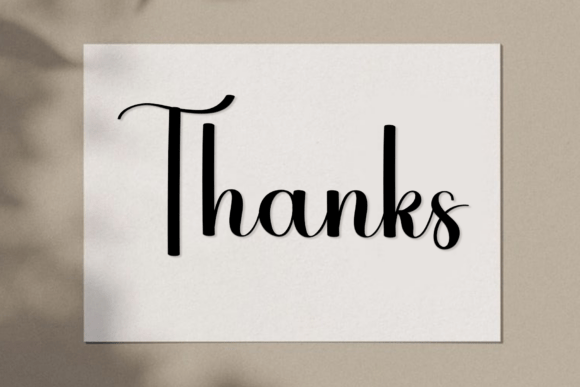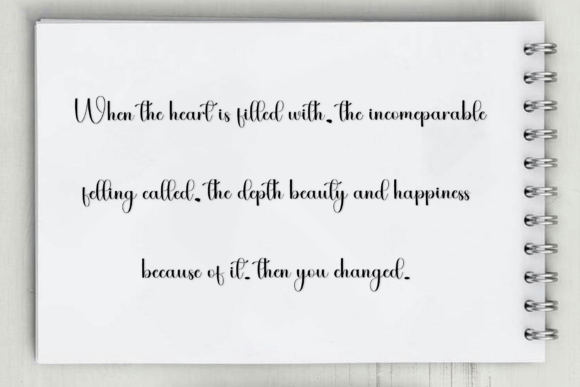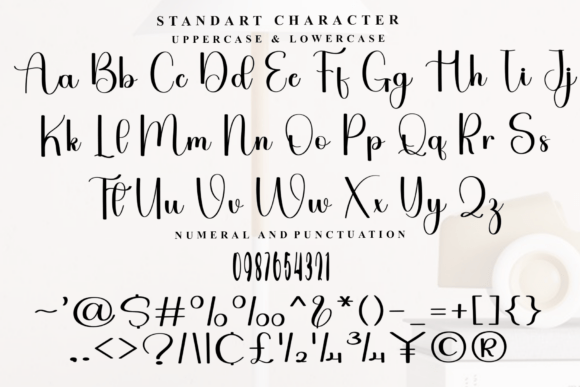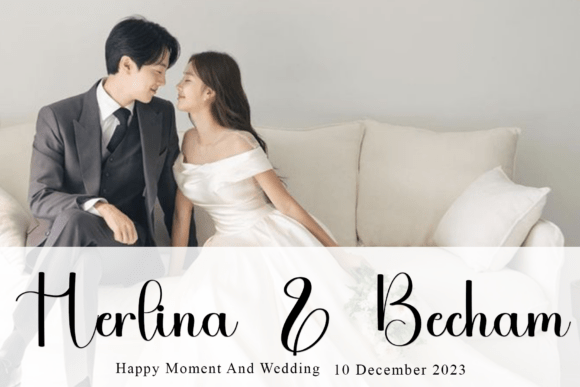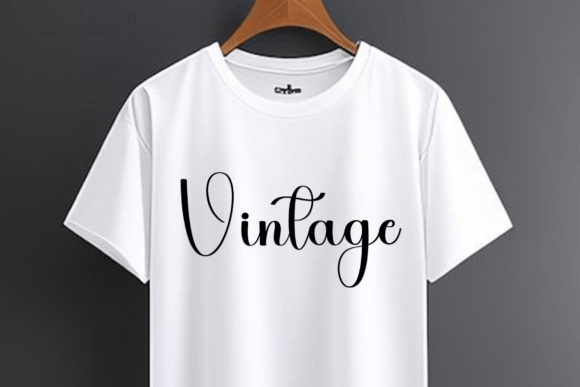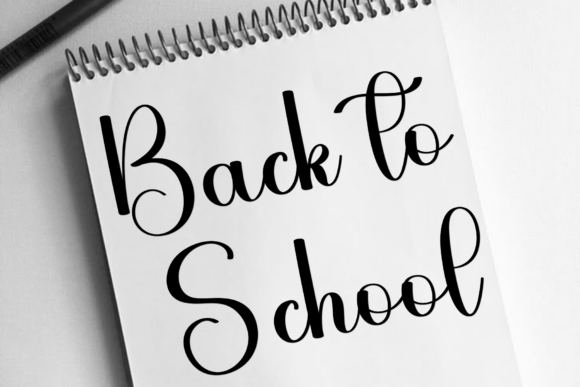
The Magic of Typography: Unwrapping the Beloved Wedding Font
As I sat amidst the twinkling lights and the warmth of the fireplace, surrounded by loved ones and the faint scent of freshly baked cookies, I stumbled upon a font that brought an instant smile to my face. It was as if the Beloved Wedding Font had captured the essence of the holiday season, radiating a sense of joy and nostalgia that I couldn’t help but be drawn to.
This festive and merry typeface is perfect for designers looking to add a touch of whimsy and enchantment to their projects. With its decorative elements and PUA encoding, which allows for seamless access to all the amazing glyphs and ligatures, the Beloved Wedding Font is a valuable asset for anyone looking to create truly special designs.
Beloved Wedding Font Key Features
- Font Family: Beloved Wedding Font is a beautiful, elegant script font, ideal for wedding invitations, announcements, and other special occasions.
- Unique Characteristics: Beloved Wedding Font features flowing, cursive script lines, intricate flourishes, and ornate details, creating a romantic and sophisticated atmosphere.
Beloved Wedding Font Review
As a designer, I’ve had the pleasure of working with the “Beloved Wedding Font” and I must say it’s a mixed bag.
- Beautiful, elegant script style that’s perfect for weddings and other romantic occasions.
- High-quality font that’s smooth and easy to read.
- Comes in a range of weights and styles, making it versatile for various design needs.
- Limited language support, which may be a concern for non-English speakers.
- Some characters may not be available in certain languages or character sets.
- Not as customizable as some other fonts, which may limit its use in certain design scenarios.
Overall, I’d say the “Beloved Wedding Font” is a solid choice for designers looking for a beautiful, elegant script font. While it has some limitations, its high-quality design and versatility make it a great option for many projects. Just be aware of its limitations and plan accordingly.
Use the Beloved Wedding Font in combination with other elegant fonts to create a cohesive look.
Experiment with different font sizes and colors to add emphasis and visual interest.
Consider using the Beloved Wedding Font for titles, headings, and other important text elements.
The Beloved Wedding Font is ideal for:
Wedding websites and blogs
Wedding programs and menus
Other wedding-related materials, such as save-the-dates and thank-you cards
Alternative Wedding Fonts for Designers
Great Vibes is a beautiful, modern calligraphy font ideal for wedding invitations and stationery. It features elegant, flowing lines and a soft, romantic feel. Great Vibes is a great choice for designers who want to create a sophisticated, high-end look.
Comparison to Beloved Wedding Font: Great Vibes has a more modern and sleek feel compared to the classic, vintage look of Beloved Wedding Font.
Alex Brush is a elegant, handwritten font perfect for wedding invitations, programs, and other stationery. It features a beautiful, flowing script with a touch of whimsy. Alex Brush is ideal for designers who want to create a romantic, vintage look.
Comparison to Beloved Wedding Font: Alex Brush has a more feminine and delicate feel compared to the classic, elegant look of Beloved Wedding Font.